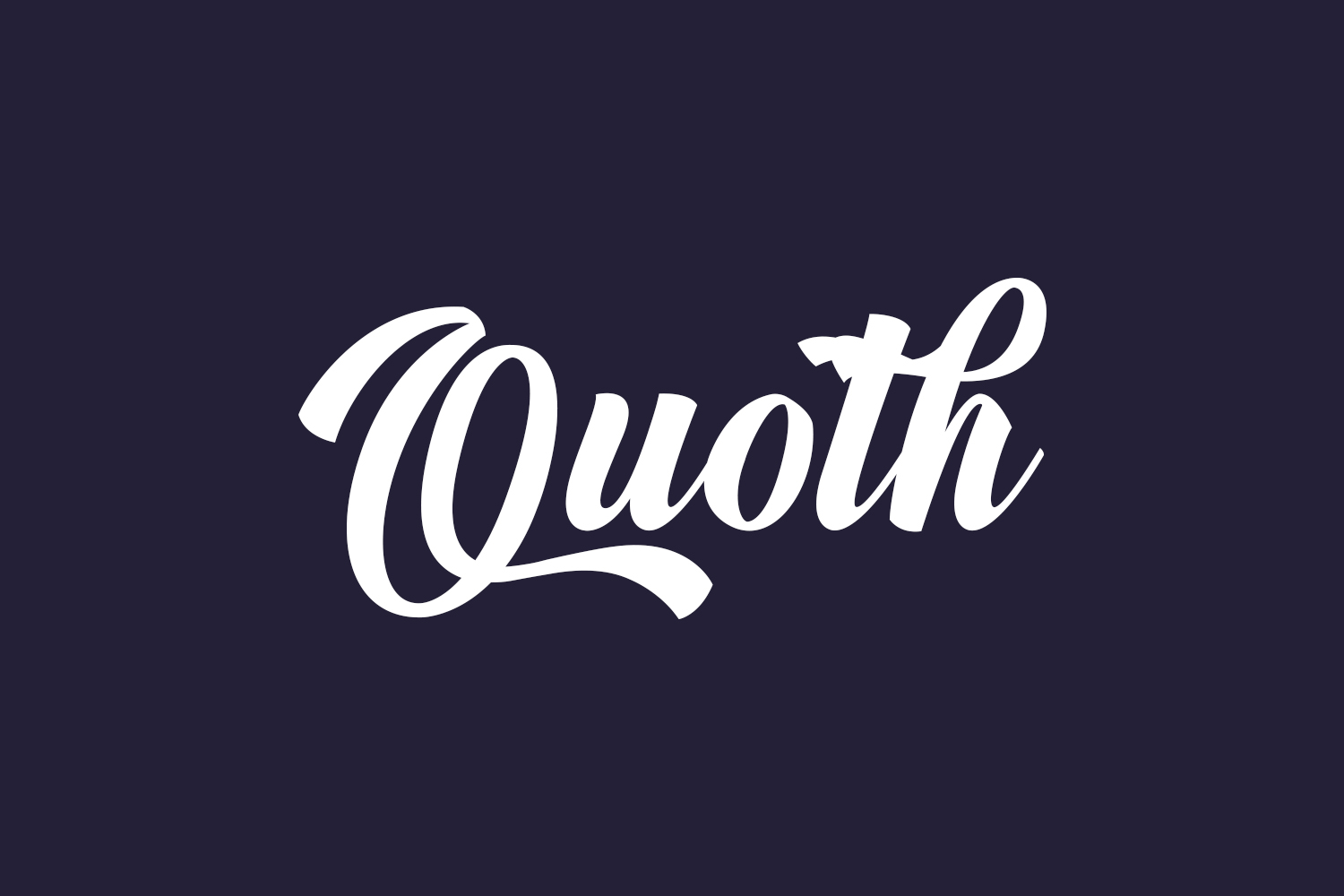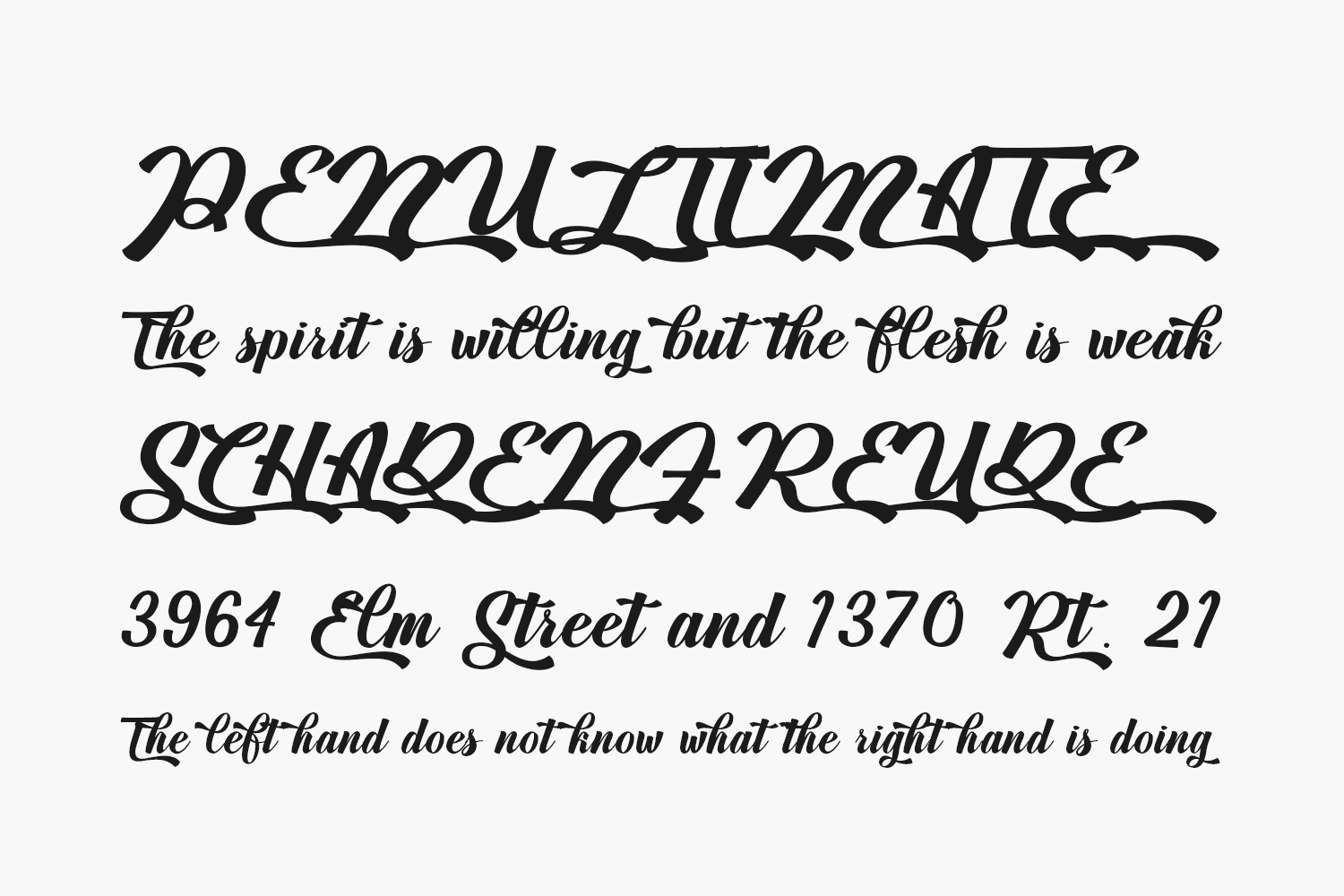
Quoth Free Font is a beautifully designed font that captures the essence of brush strokes and freeform handwriting. Its soft and delicate appearance makes it perfect for use in print media, such as magazines and ads, as well as on clothing and apparel. Quoth Free Font is free for personal use only. Please purchase the full version for commercial use.
Designed by Typhoon Type™